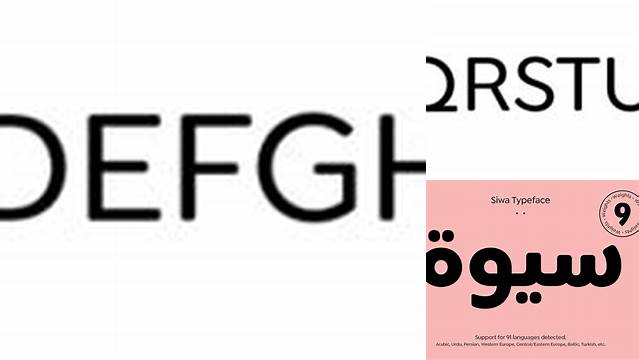
Siwa Regular Font: Free Download & Design Guide
- Design Principles: The font's principles might be in line with the principles of modern design. This may explain why it is easy to read and versatile in different contexts. These are important considerations when using the Siwa Regular font.
While the specific history of Siwa Regular might be elusive, researching the font's creators and its design principles can still give you valuable insights. The background knowledge will help create more informed design choices.